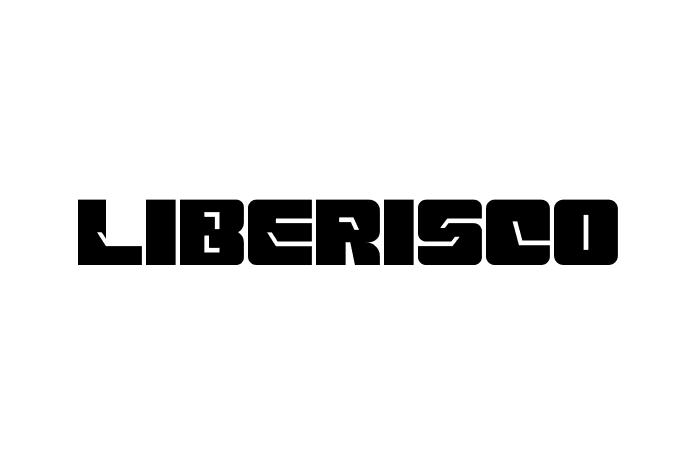
Aerobus Font
Aerobus Font is a dynamic and powerful technological font. Made with a more geometric and flexible impression, making this font look more futuristic. It can also be used for sport, logo, poster, games, product design and much more.
Font designer Muhammad Afif Ersya
Typeface classification Sci-fi,Techno